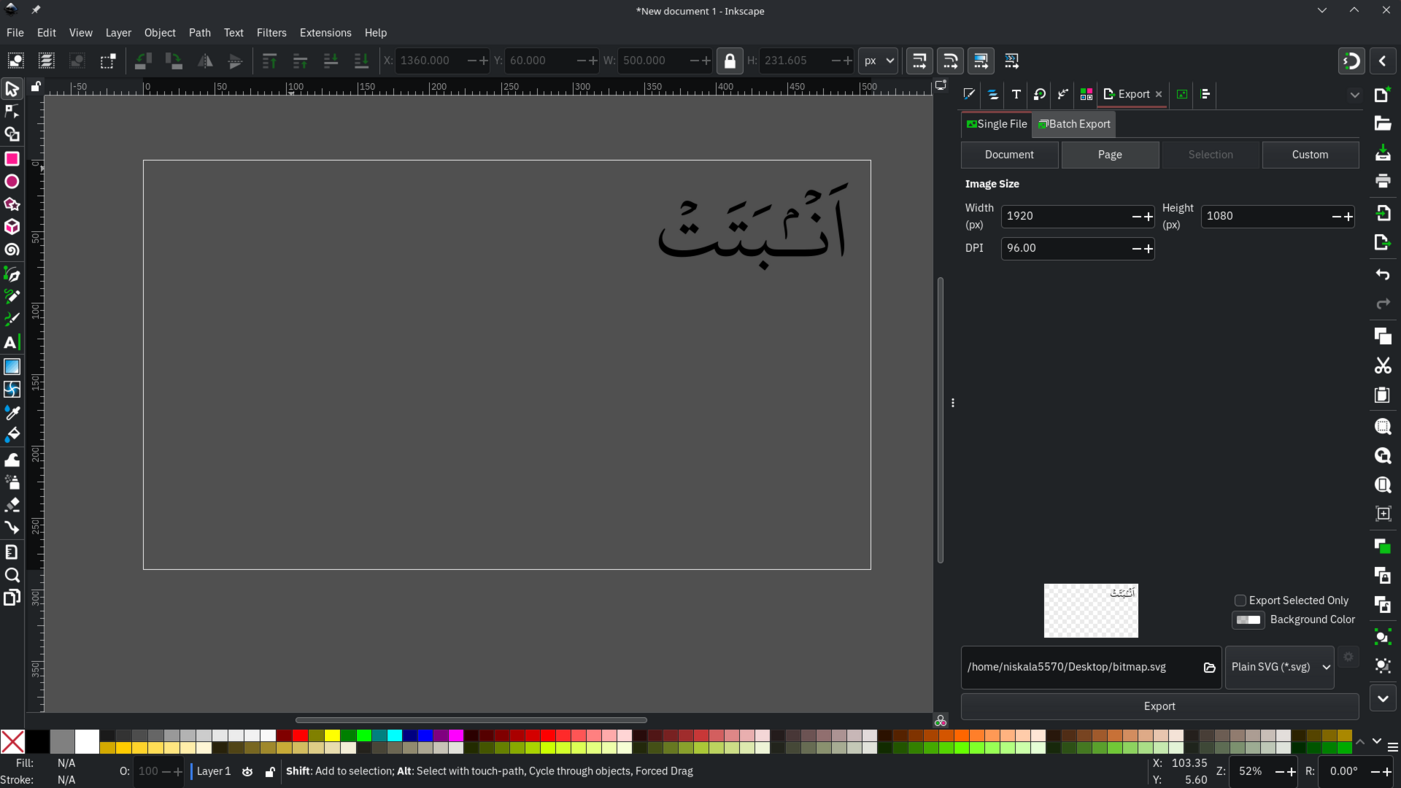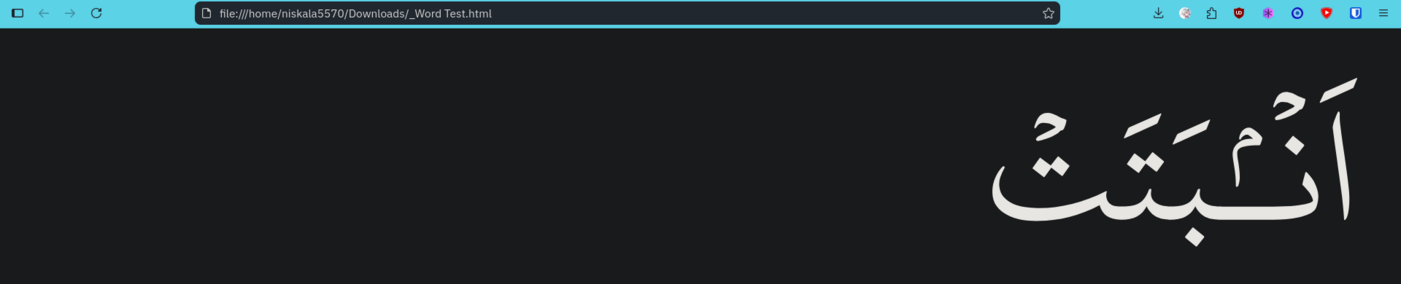
Arabic font display on website
I am trying to write a HTML page that displays the Islamic holy book, the Quran, in Arabic.
When I create such a document in Microsoft Word using a particular font, the text is displayed in a particular format.
However, when I try to recreate this same display in a HTML page, using the same font, the text is displayed differently, in a more compacted fashion.
How do I get the Arabic text to display in HTML exactly the same way it displays in Word?
I can’t read/judge it at all, but are we sure the Word display is better or the right way to display this? I would usually trust the browser display more than Word (which has usually font features like OpenType layout features and kerning disabled).
@ Trying to fly high the Glorious Quran eye-catching text and marks?!
3. Precisely with marks recommended by Ten (10) Commandments of Arabic Fonts:
1. Longer Fatha on wide letters.
2. Longer Madda on Alif after wide letters.
3. Higher Madda on Alif after tall letters.
4. Longer + higher Madda on Alif after Wide+Tall letters.
5. Open loop sukun in place of the closed loop.
6. 69 Tanween instead of z9.
7. Standing Kasra similar to the Standing Fatha.
8. Isolated Kasra + (Tanween Kasr) from Shadda.
9. Closer Kasra + (Tanween Kasr) enveloped by final letters.
10. Marks on ط positioned slightly above where the dot of its sister ظ appears.
If your goal just to display the text accurately and not browser accessibility (copy text, translation, tts), then your best way is to make use of SVG.
Tho the font you provided seems to not work well in my side as well (Inkscape, LibreOffice), as I don't have MS Word to confirm, it just displayed the same way as browser display. So please note that I've made manual adjustment myself.image.png